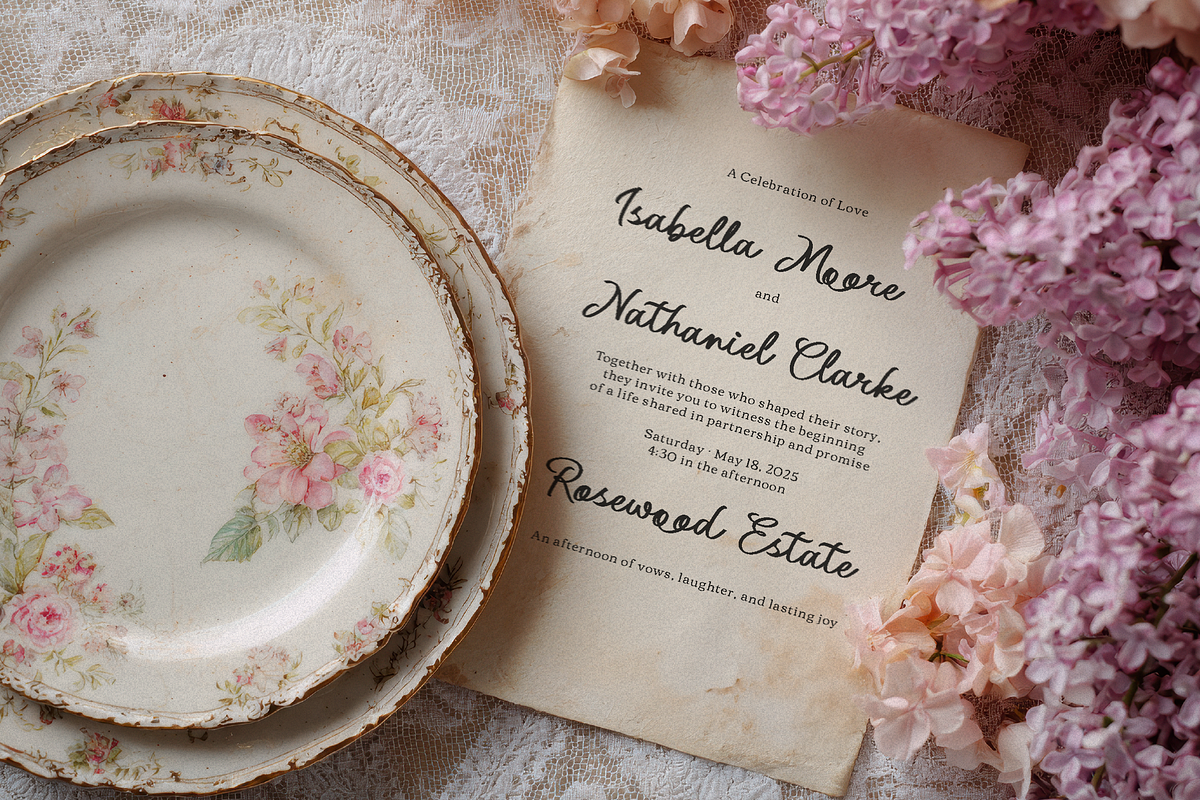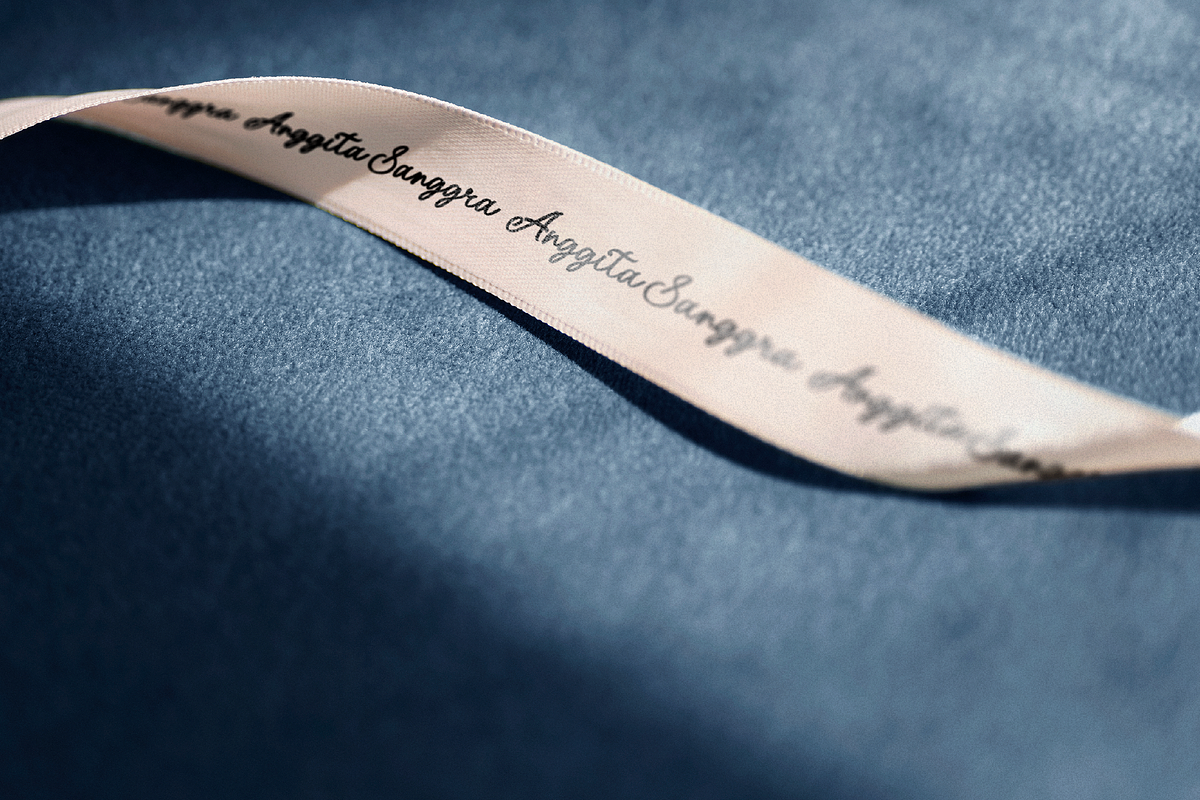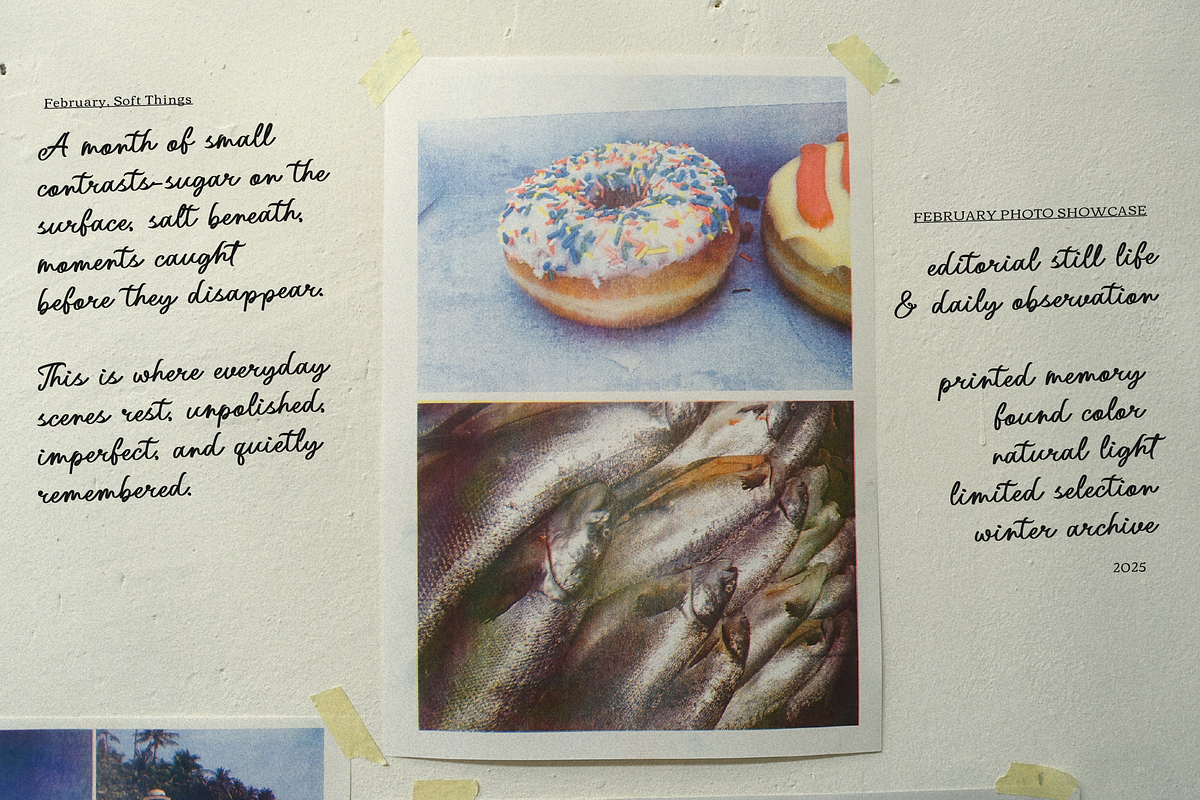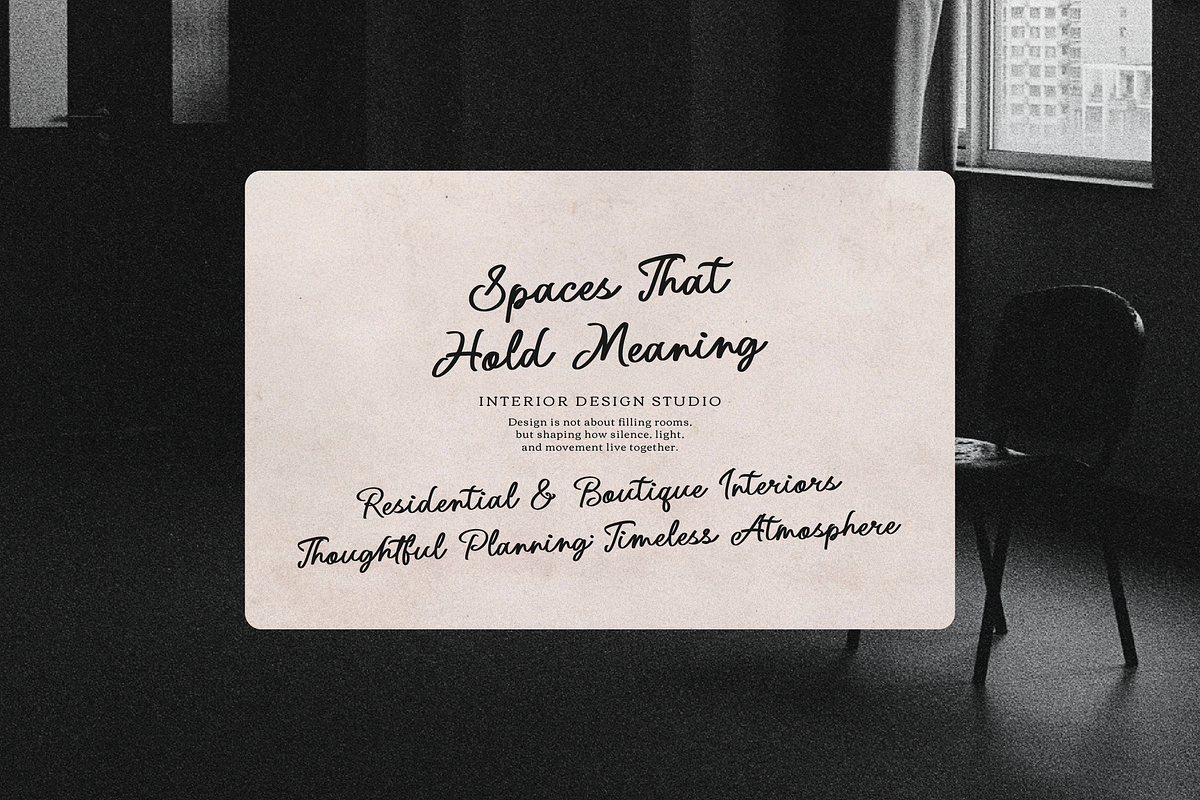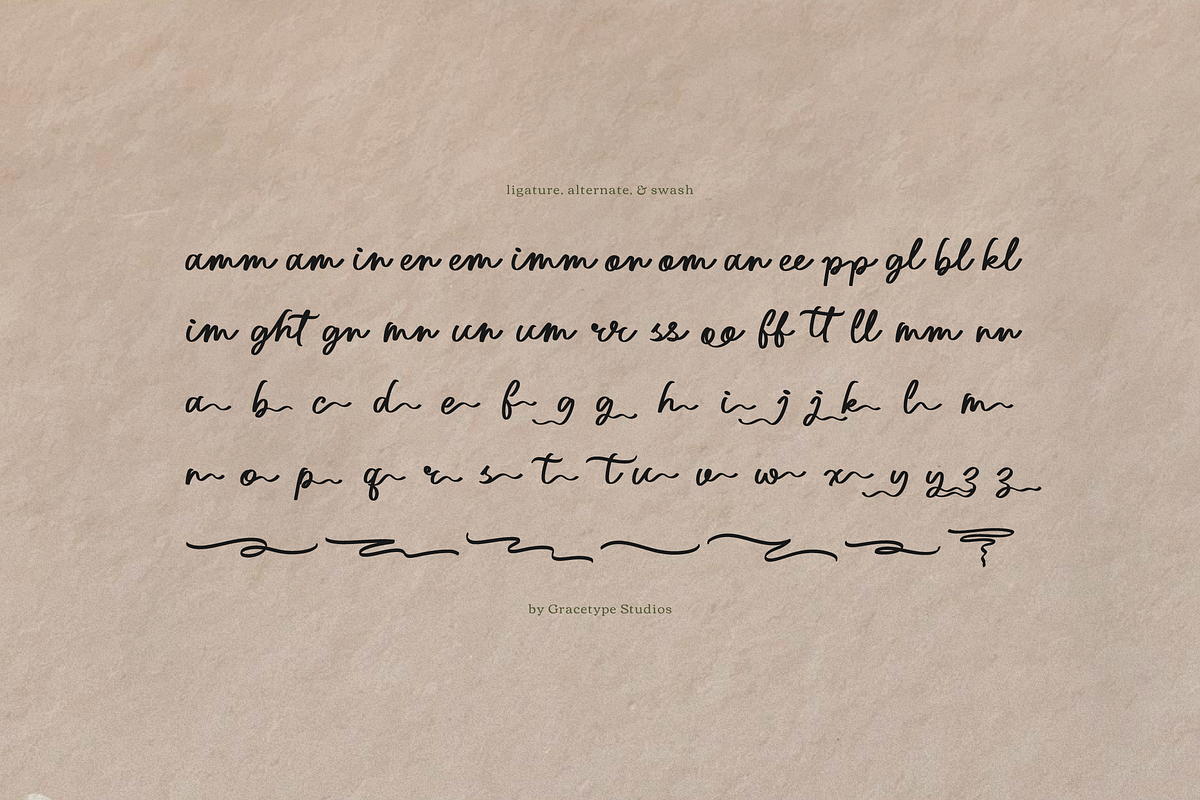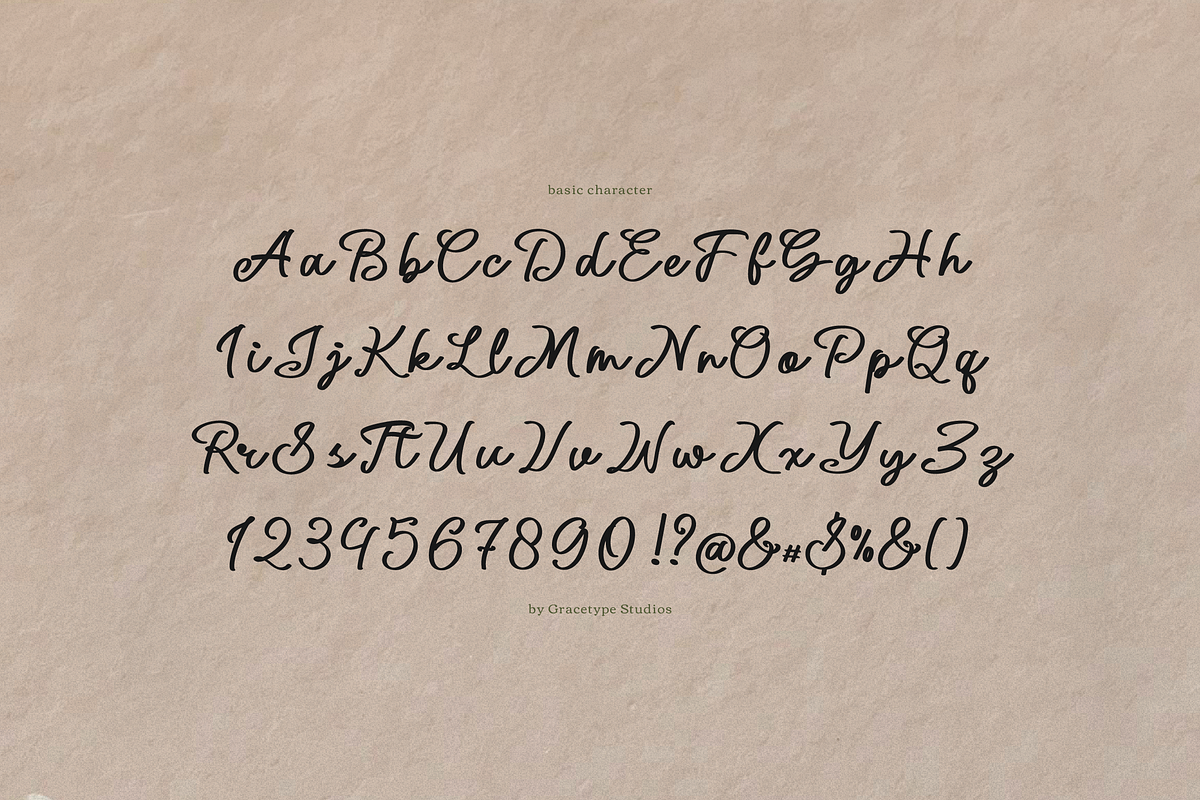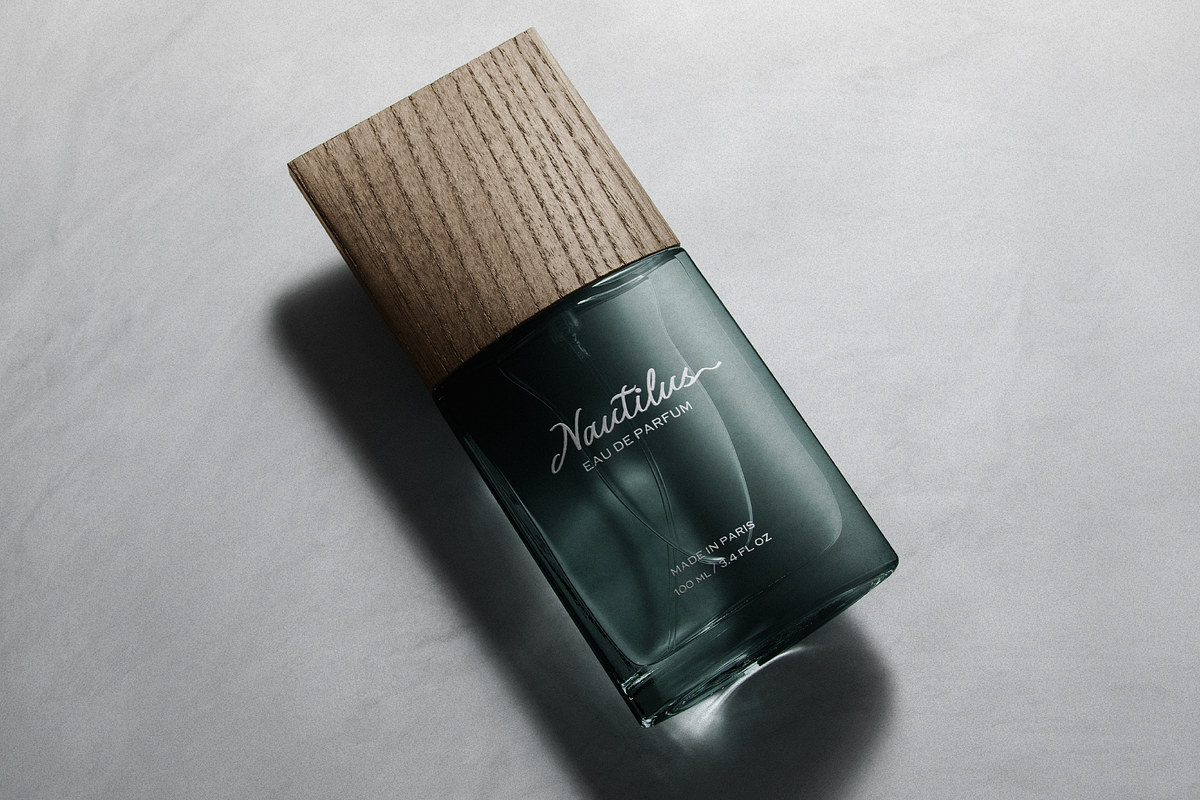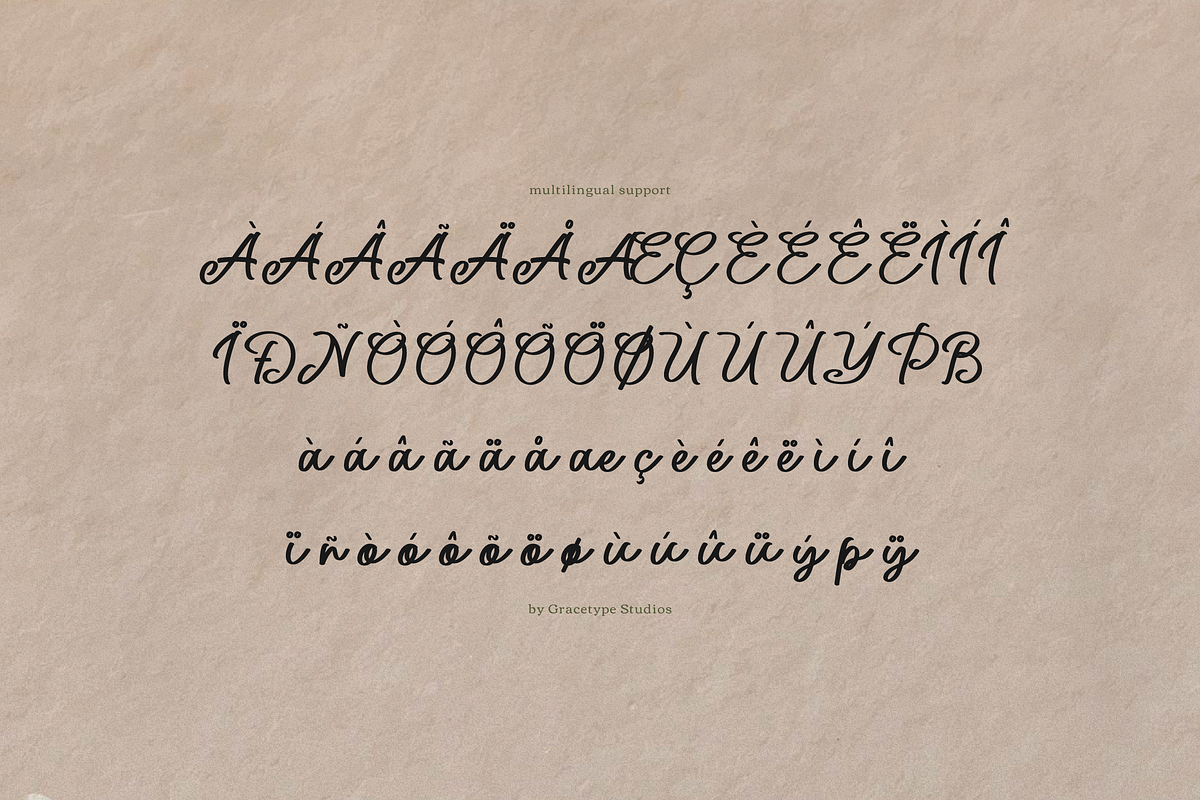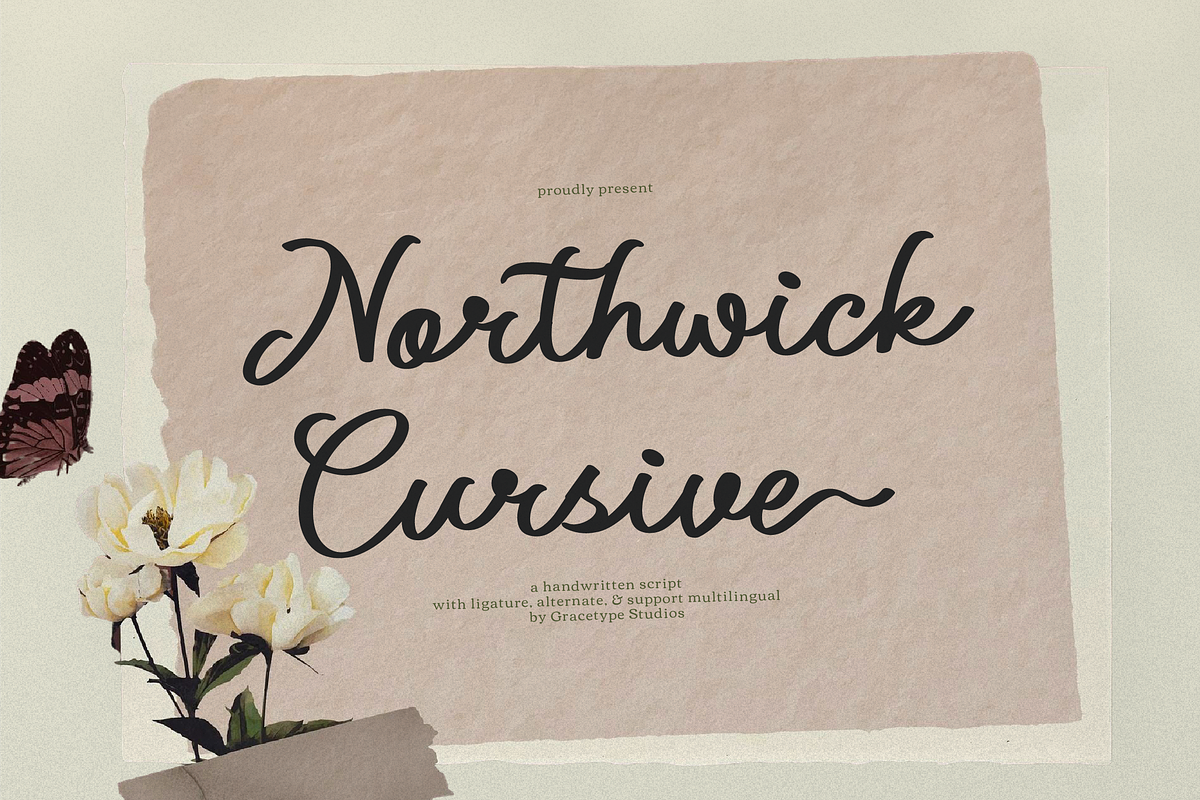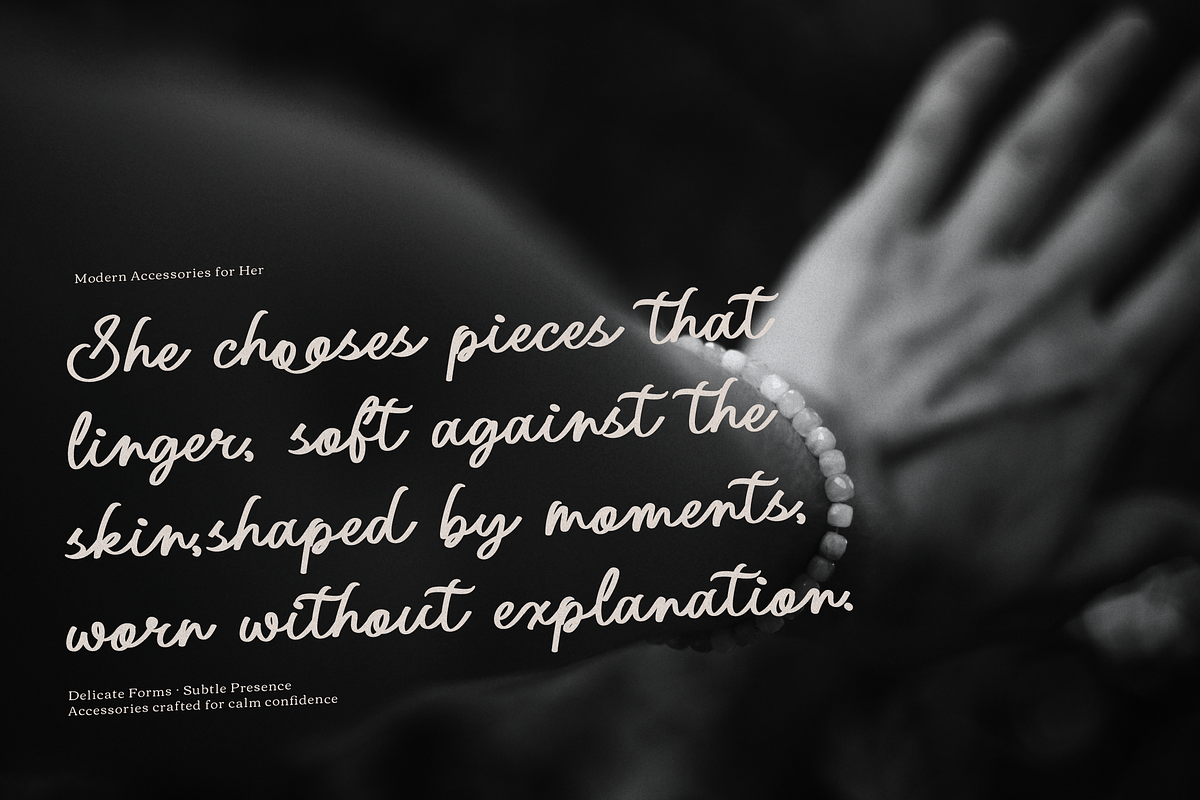
Northwick Cursive Handwritten Script
Northwick Cursive | Handwritten Script, from Gracetypestudio, suitable for any projects such as: logos, branding projects, homeware designs, product packaging, mugs, quotes, posters, shopping bags, t-shirts, book covers, name card, invitation cards, greeting cards, label, photography, watermark, special events, and all your other lovely projects that need a Script taste.